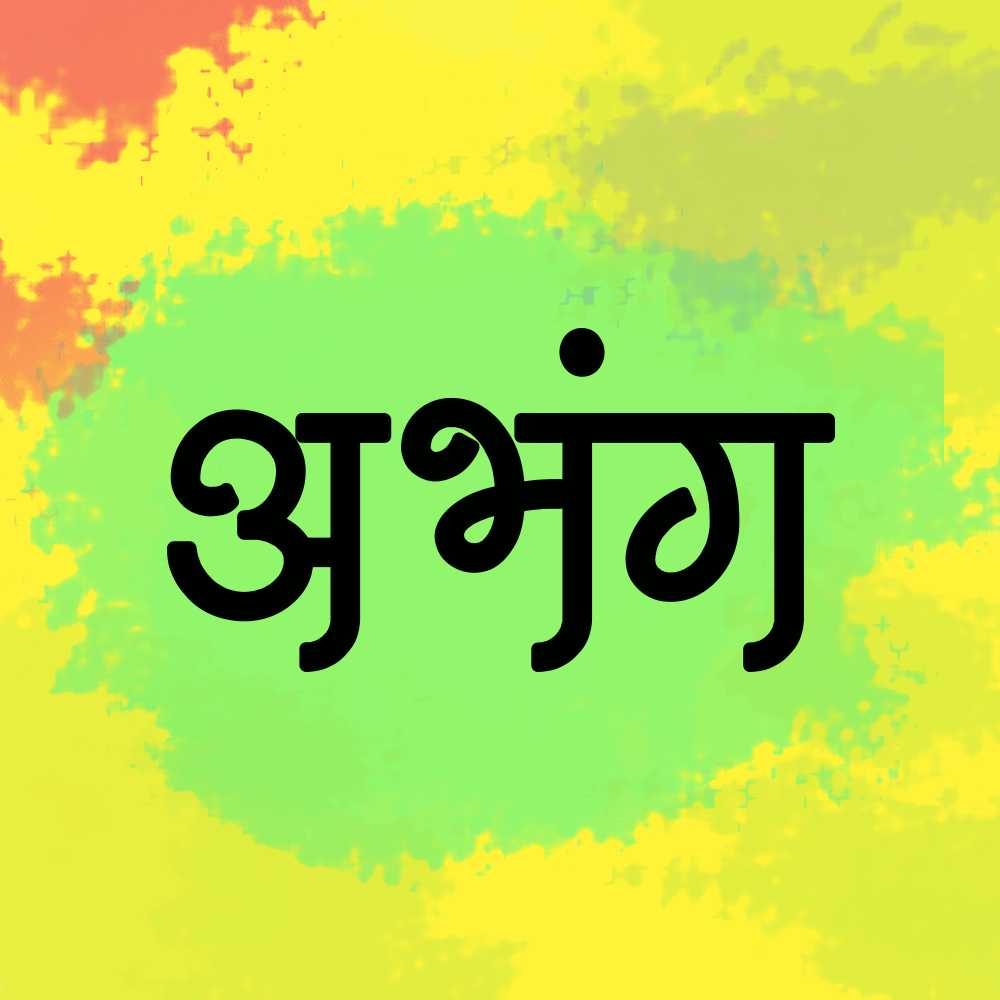
AMS Barakhadi
AMS Barakhadi is a carefully crafted font designed to bring professionalism and elegance to your Hindi and Marathi publications. With its refined style and exceptional legibility, this font enhances the visual appeal and readability of your content.
About AMS Barakhadi Font
AMS Barakhadi is a carefully crafted font designed to bring professionalism and elegance to your Hindi and Marathi publications. With its refined style and exceptional legibility, this font enhances the visual appeal and readability of your content. This publication font combines elegance with functionality, making it perfect for various design applications.
AMS Barakhadi is a professionally crafted publication typeface that brings clarity and style to your projects. Designed with attention to detail, it supports hindi and marathi characters flawlessly.
Whether you're working on wedding-materials, invitations, posters, or other creative projects, AMS Barakhadi delivers consistent performance across both digital and print media. This carefully designed typeface ensures readability and visual appeal in all your design work.
About AMS Barakhadi Typography Style
AMS Barakhadi is a professionally crafted publication font that exemplifies modern Hindi typography design. This free font is perfect for designers seeking impactful poster and display applications.
Available in 1 weight and supporting hindi, marathi scripts, AMS Barakhadi offers exceptional versatility for both digital and print media. Whether you're working on wedding-materials, invitations, posters, this carefully designed typeface ensures consistent quality and professional results across all your typography projects.